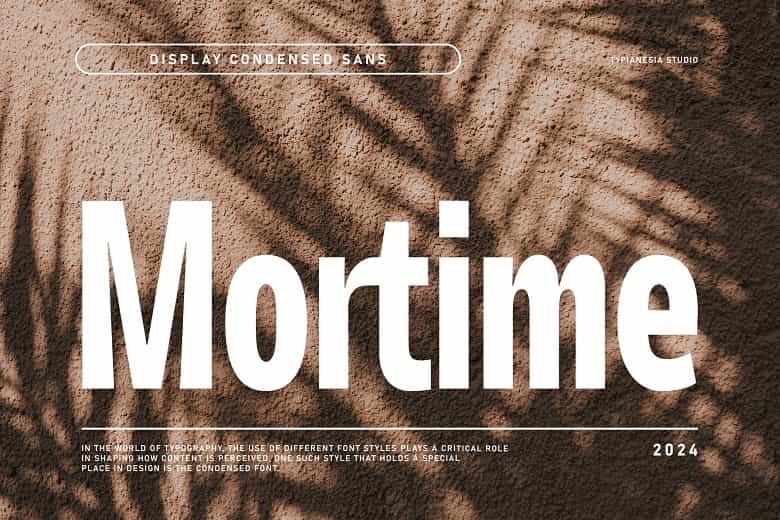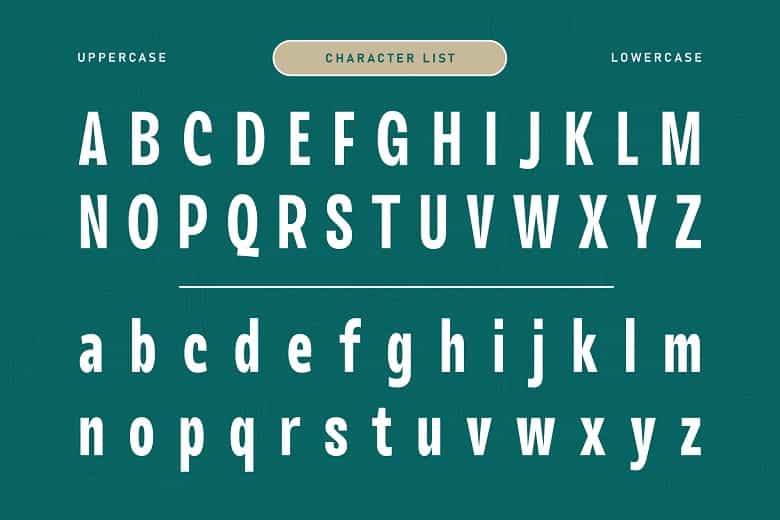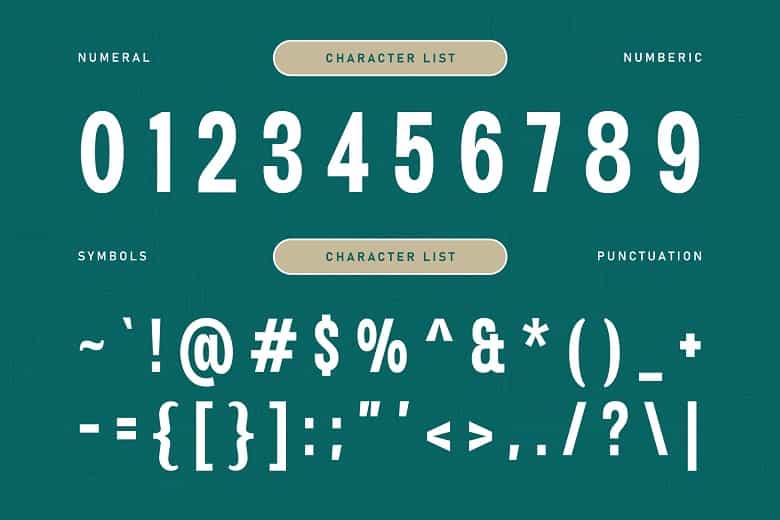
Mortime is a display condensed sans font that relies on minimalism and a bold aesthetic and because it has clean lines and a narrow and compact design it is perfect for magazine covers, posters, branding, and websites, Mortime is great for fashion, editorial, tech, packaging, and lifestyle projects. It gives a bit of a contemporary touch to any design yet does not compromise the clear and aesthetic value.